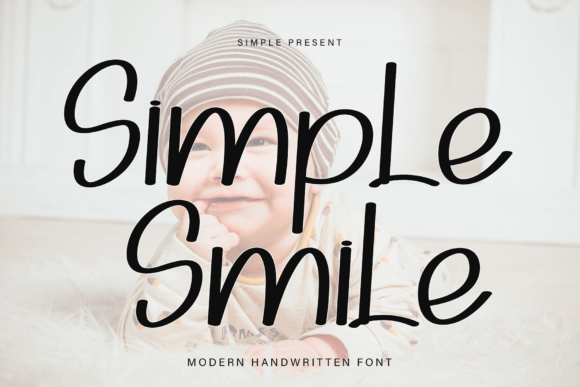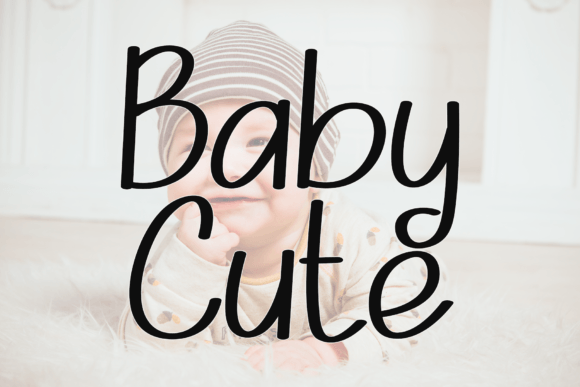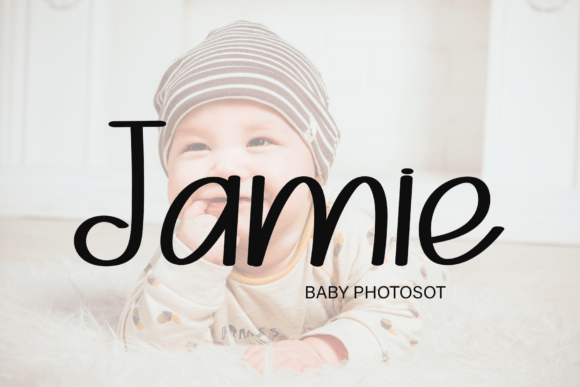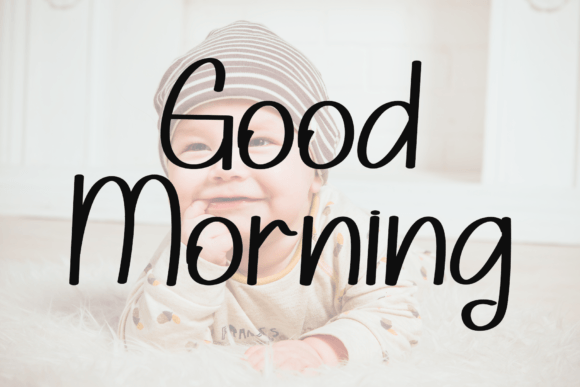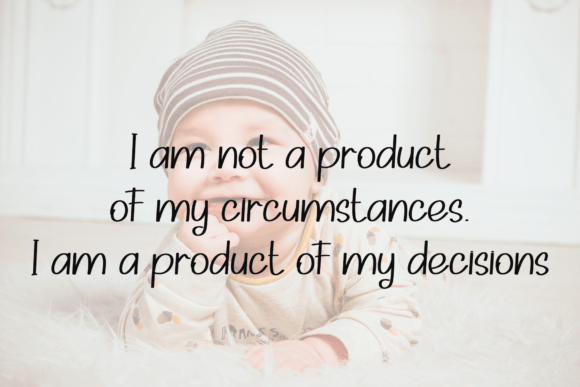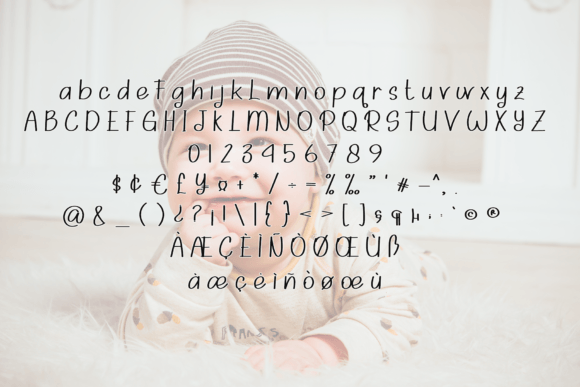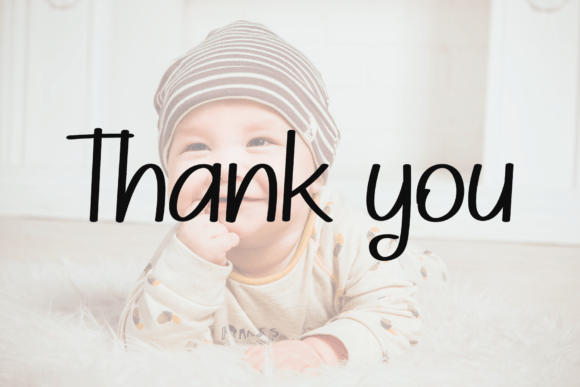
Simple Smile Font
About Simple Smile Font
“Simple Smile” is a trendy handwritten font that emanates a contemporary atmosphere with impeccable form, drawing inspiration from timeless classic calligraphy. This font is crafted to infuse elegance and class into your design projects, providing a versatile and stylish typeface that enhances visual appeal.
The trendy and contemporary vibe of “Simple Smile” makes it an excellent choice for a broad spectrum of applications. Whether you’re working on branding, advertising, or any creative endeavor, this font introduces a modern touch while paying homage to classic calligraphy, creating a harmonious blend of tradition and current design trends.
The impeccable form of “Simple Smile” ensures that each character is meticulously designed, contributing to an overall aesthetic that is refined and stylish. This attention to detail makes the font a valuable asset for projects that require a touch of sophistication.
“Simple Smile” showcases its versatility by adapting seamlessly to various needs. Whether you’re creating product labels, promotional materials, or diverse design elements, this font accommodates a range of contexts, offering flexibility and reliability for a wide array of design requirements.
In summary, “Simple Smile” is more than just a font; it’s a trendy and contemporary design tool that injects elegance and class into your projects. With its impeccable form and versatility, this handwritten font is well-suited for a variety of applications, allowing you to convey creativity and sophistication in every facet of your design work.